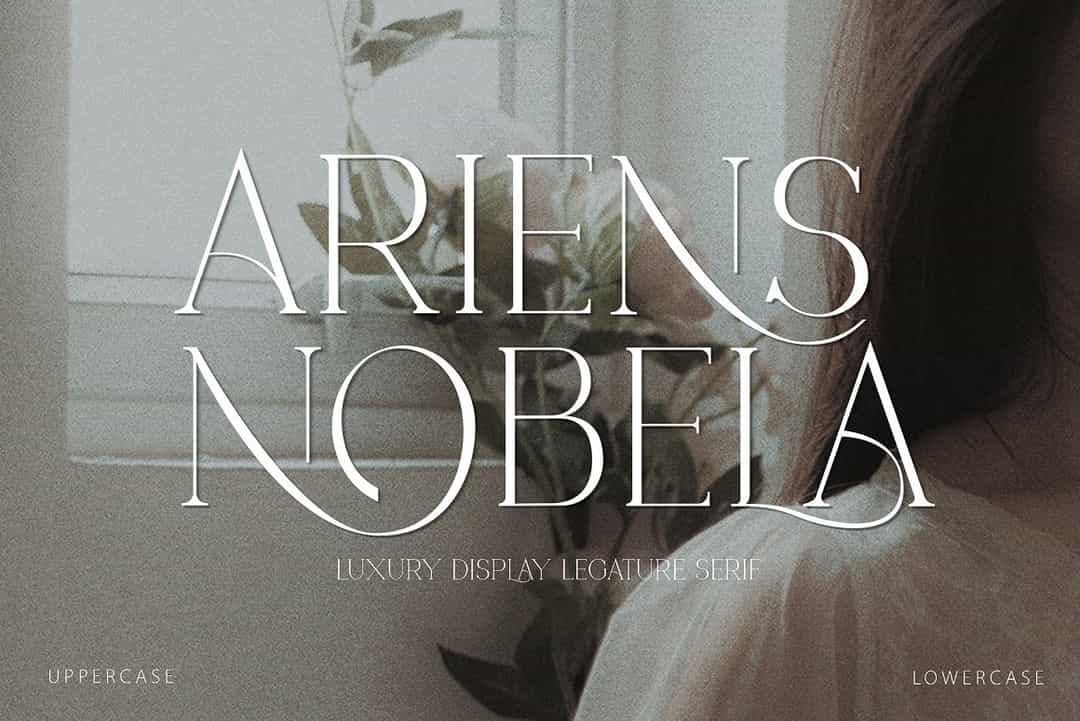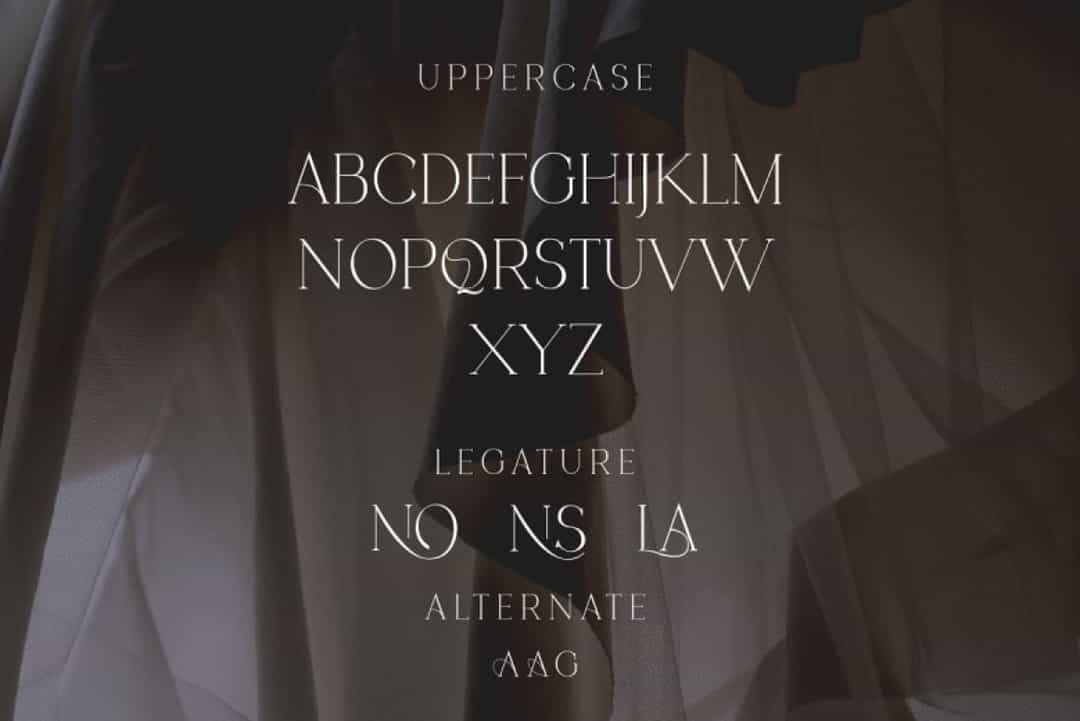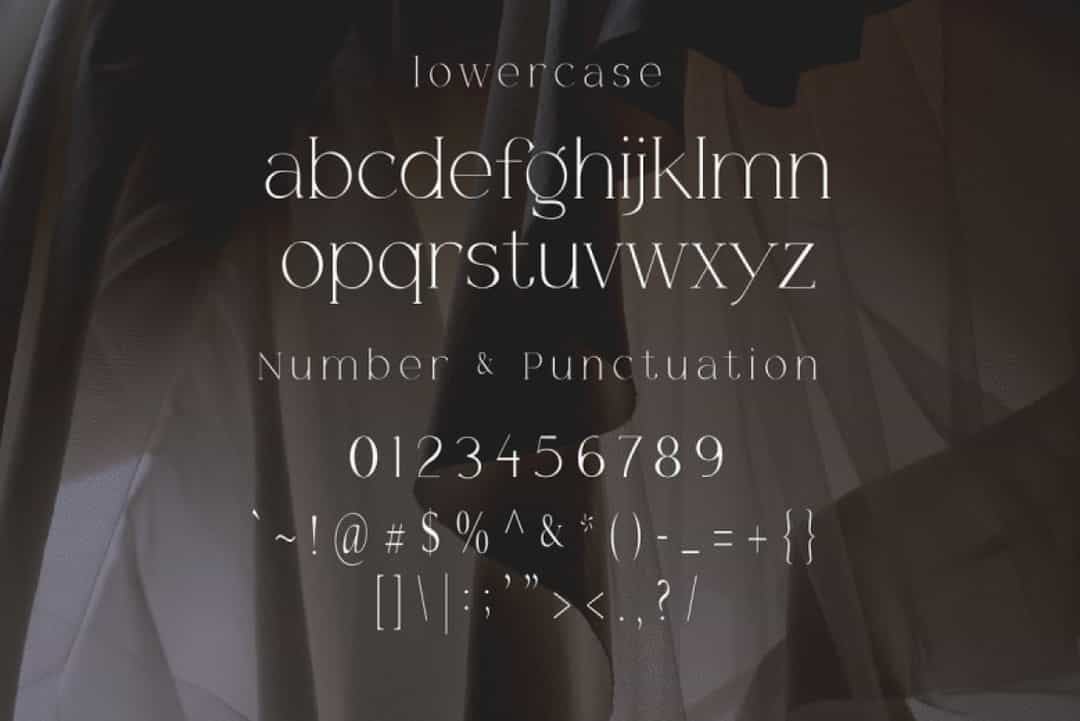
Ariens Nobela is an elegant, beautiful and luxurious serif typeface designed to exude luxury and beauty. With its striking features and its distinct aesthetic appeal, this font is an excellent option for creating logos, magazine brochures, social media content or brochures among other designs.